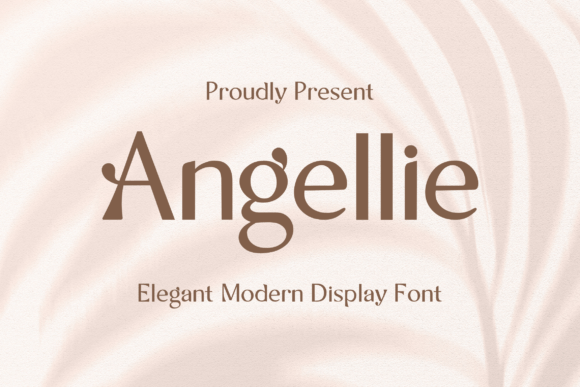
Angellie: A Display Font for Editorial Elegance
As someone who crafts newsletters, designs digital magazines, and develops printable guides and ebooks, I pay close attention to how type shapes tone before a single word is read. Angellie isn’t just another display font—it’s a deliberate design decision. Its clean, confident curves and balanced negative space give it presence without pretension. It doesn’t shout; it invites. That quiet authority makes it especially effective in editorial contexts where clarity, sophistication, and consistency matter more than ornamentation.
Angellie belongs firmly in the display category—not for body text, but for moments that anchor attention. Think magazine covers where the title needs to resonate at thumbnail size on a phone screen. Or ebook chapter openers where a single line of text must signal a shift in voice or intention. Its high x-height and open apertures ensure legibility even at smaller display sizes, while its subtle contrast between thick and thin strokes adds rhythm without sacrificing neutrality. It reads as modern, not trendy—timeless enough for a quarterly print journal, yet fresh enough for a creator newsletter landing page.
In practice, Angellie excels where hierarchy meets intention. Use it for blog post headers paired with a warm serif like Merriweather or a crisp sans like Inter for body copy—this pairing creates visual breathing room and signals editorial care. For quote graphics in newsletters or social media previews, Angellie’s graceful terminals lend gravitas to short, resonant lines. In wedding planning ebooks or coaching workbooks, it conveys refinement without coldness—ideal for titles like “Your First Month Together” or “The Intentional Morning Ritual.”
It also supports brand cohesion across formats. When you use Angellie for your publication’s masthead, then echo its curve in custom dividers or section markers (even as vector accents), readers begin to recognize your voice visually. That recognition builds trust—especially important for independent publishers and course creators building long-term content brands. Unlike overly stylized script fonts, Angellie avoids niche associations. It doesn’t evoke “vintage café” or “luxury perfume” by default—instead, it adapts. Pair it with a neutral sans for tech newsletters, or with a delicate serif for literary zines. Its flexibility is part of its strength.
For printable materials—guides, worksheets, planners—the font renders cleanly in PDF exports and holds up well in CMYK print. Its letterforms avoid fine hairlines that risk disappearing on low-resolution printers or economical paper stocks. And because Angellie includes standard OpenType features like discretionary ligatures and stylistic alternates, you can introduce subtle variation in repeated uses (like cover variants or seasonal editions) without switching fonts entirely. Multilingual support covers Western European languages, making it viable for bilingual newsletters or globally distributed digital magazines.
That said, Angellie isn’t meant for extended reading. Its personality shines brightest in controlled doses: headlines, pull quotes, cover titles, section dividers, and branded lead magnets. Attempting to set full articles or long-form guides in Angellie would compromise readability and fatigue the eye. Instead, treat it like a signature ingredient—used precisely, sparingly, and with purpose. In a recipe ebook, for example, reserve Angellie for dish names (“Roasted Fennel & Lemon Risotto”) and chapter headers (“Spring Suppers”), while using a highly legible serif like Charter or a friendly sans like Lato for ingredient lists and instructions.
Font pairing matters—and Angellie responds well to thoughtful companions. With serif body fonts, it gains warmth and tradition; with geometric sans serifs, it gains contemporary balance. Avoid pairing it with other high-contrast display fonts or decorative scripts—those combinations compete rather than complement. For captions, navigation menus, or footnotes, a lighter weight of your body font often works better than introducing a third typeface. Consistency in spacing and sizing reinforces professionalism, especially in multi-format publishing where readers encounter your content across email, web, PDF, and print.
Ultimately, Angellie supports editorial design not by drawing attention to itself, but by elevating the message it carries. It helps readers understand, at a glance, that what follows has been curated—not just composed. Whether you’re launching a slow-living newsletter, designing a boutique digital magazine, or packaging a mindfulness guide for print, Angellie offers a reliable tonal foundation. It’s the kind of typeface that doesn’t date quickly, doesn’t distract needlessly, and doesn’t ask readers to work harder to connect with your ideas. In an era where attention is scarce and visual noise is constant, that restraint is itself a form of impact.
When every pixel and point size contributes to how your audience feels about your content, choosing Angellie isn’t just typographic preference—it’s editorial strategy.